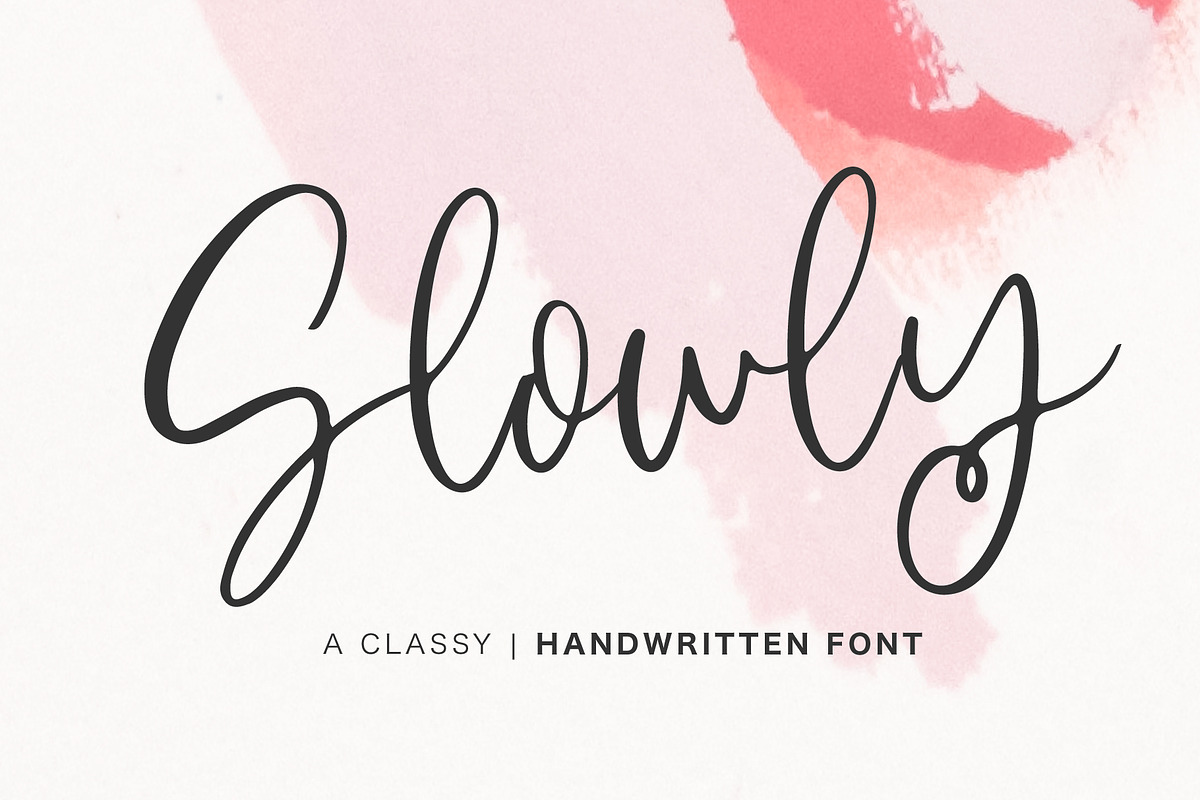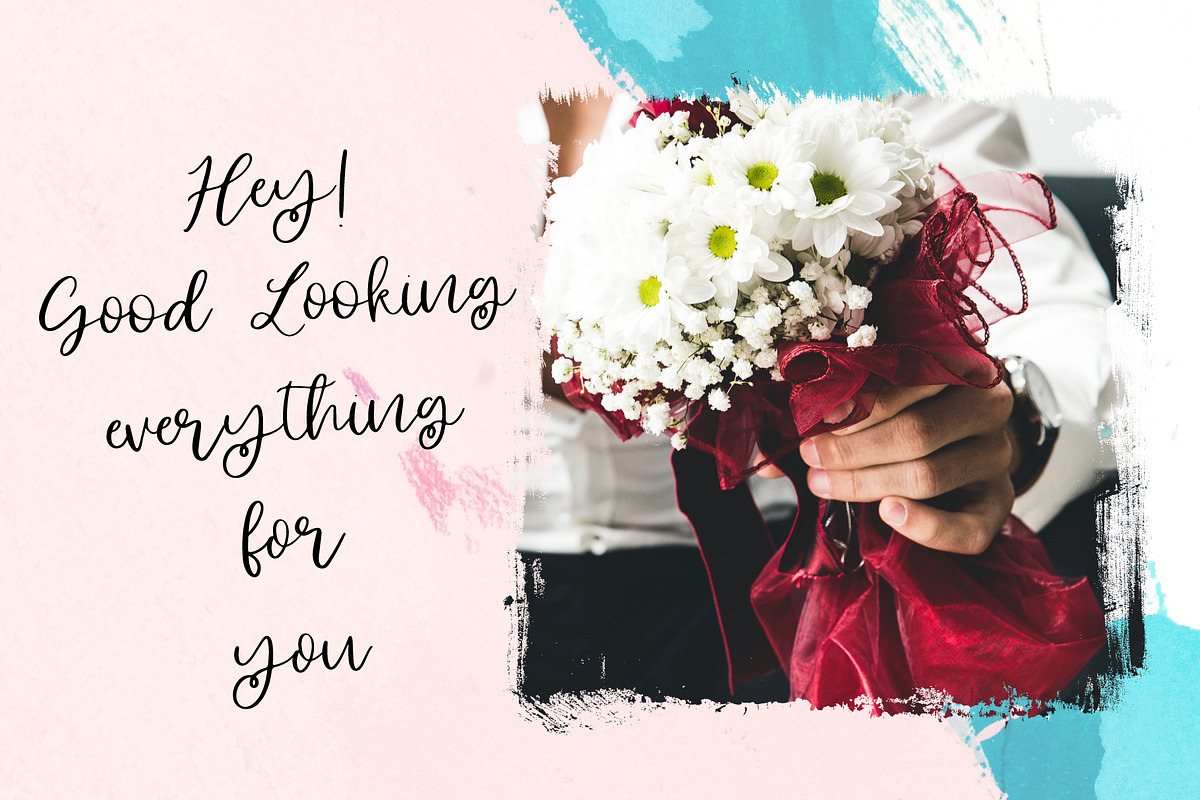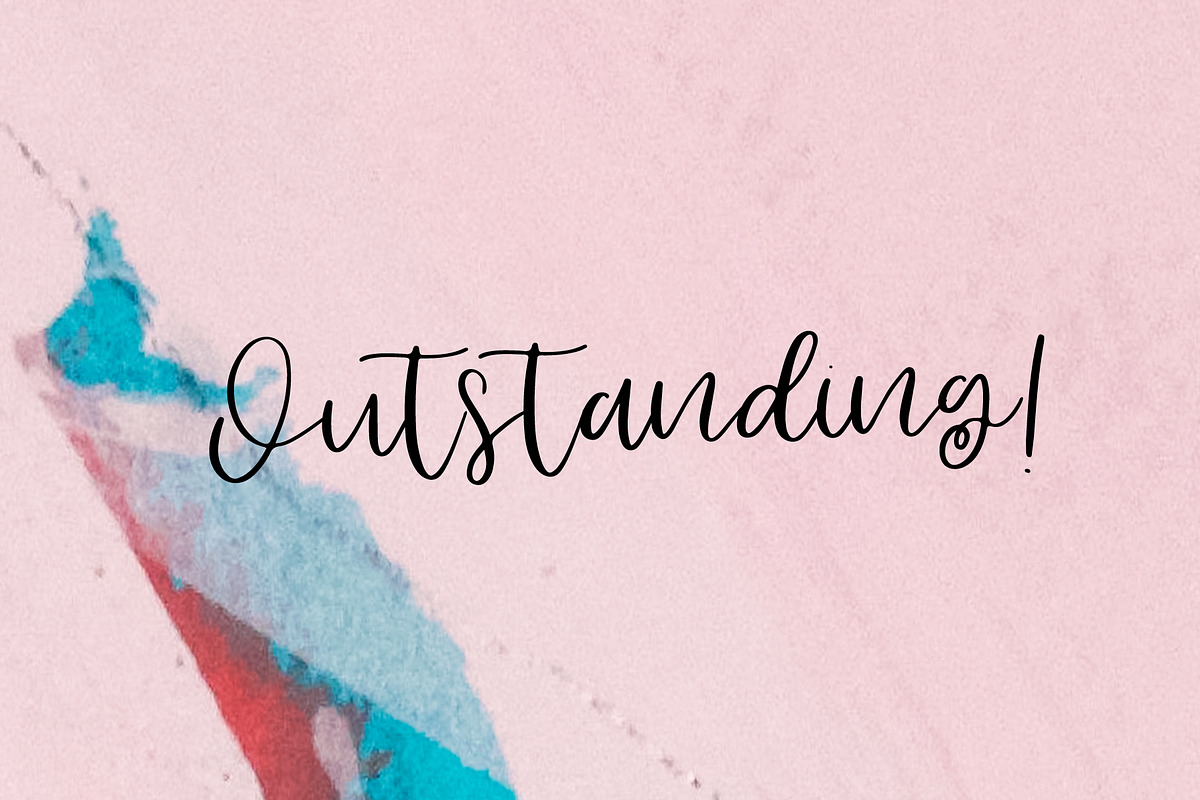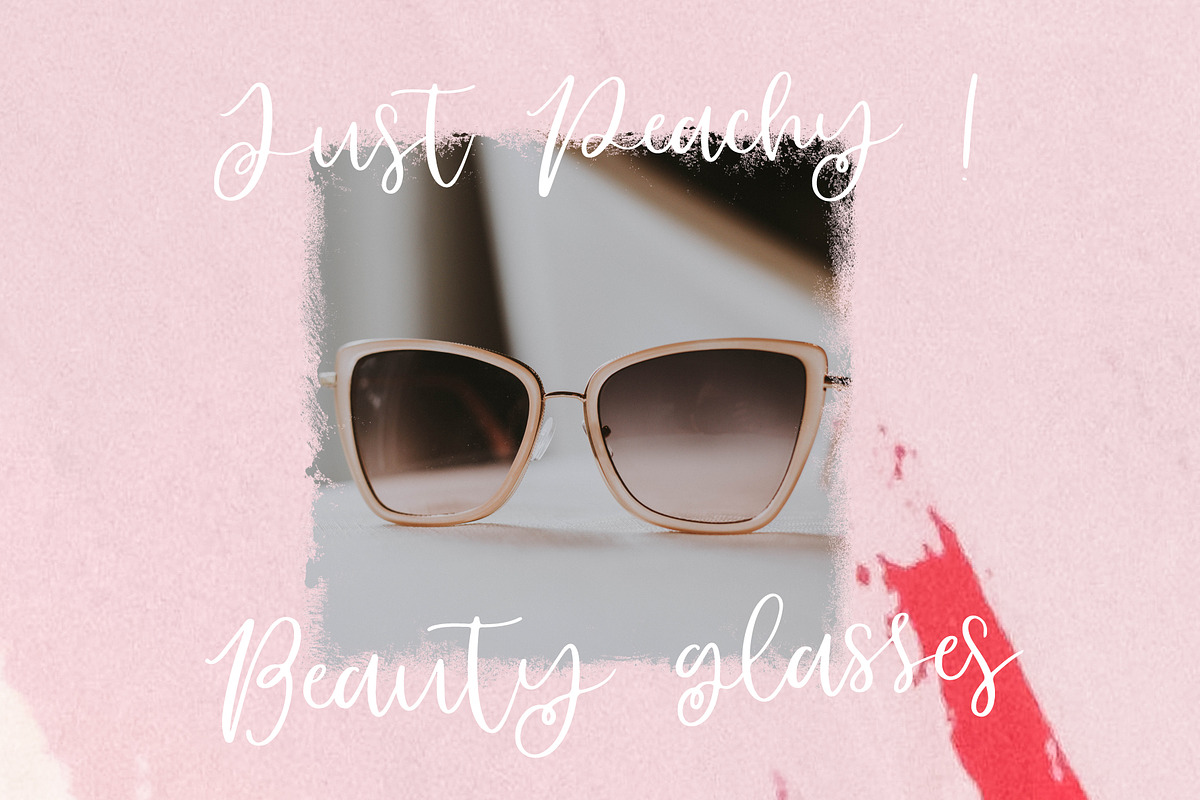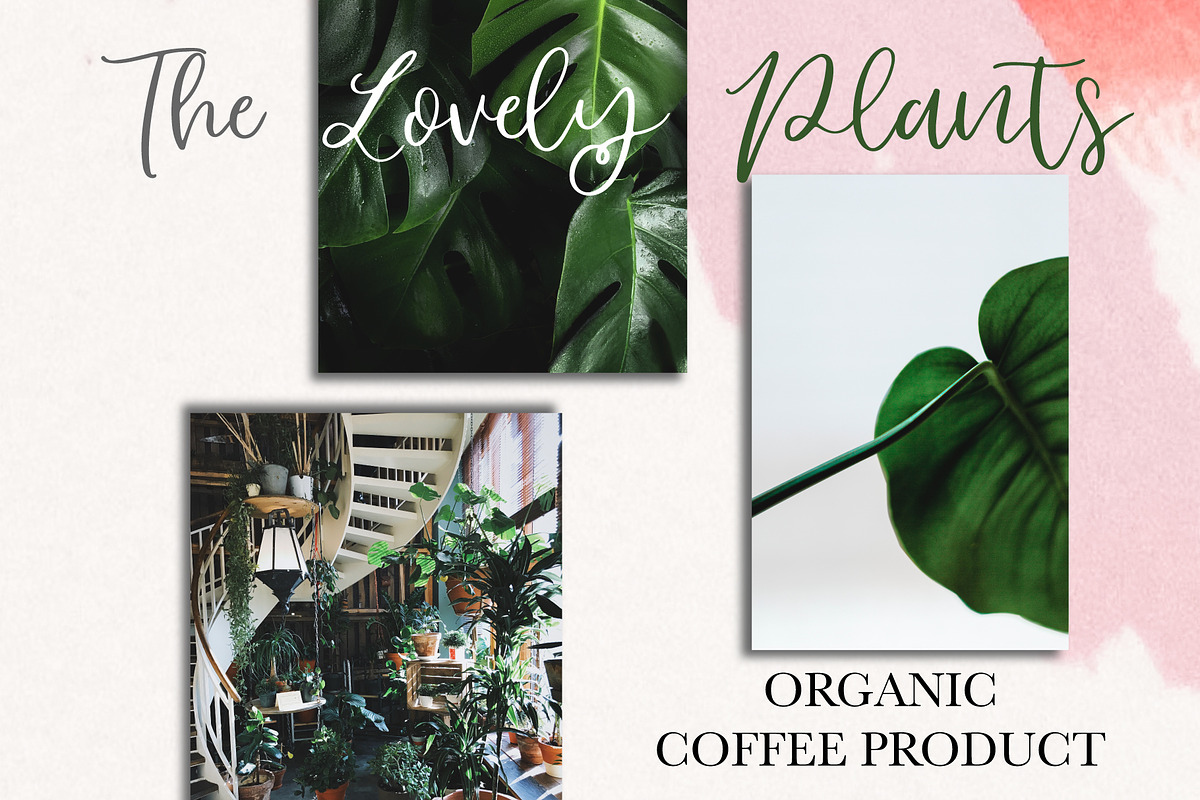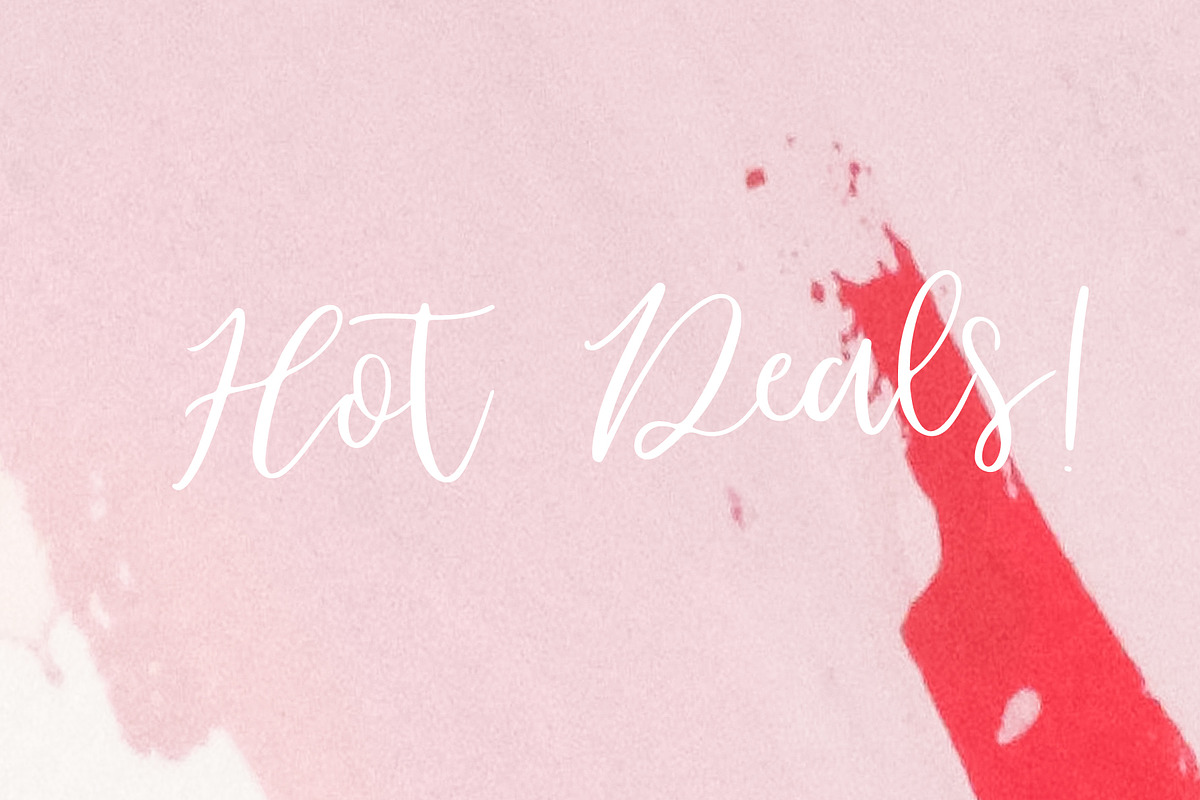
Slowly | Handwritten Font
Introducing Slowly - A Classy Handwritten font perfect for high impact headlines
Every single letter has been creative carefully and Perfectly Playful new font pair. This font is a perfect script designed for making your set of invitations, Brand, blog posts, and more completely beautiful
"Slowly" Regular (uppercase, lowercase letters, numbers, and punctuation.)
multilingual support for the following languages: Cornish, Danish, Dutch, English, Estonian, Faroese, Filipino, Finnish, French, Galician, German, Icelandic, Indonesian, Irish, Italian, Norwegian Bokmål, Norwegian Nynorsk, Portuguese, Spanish, Swahili, Swedish, Swiss German.